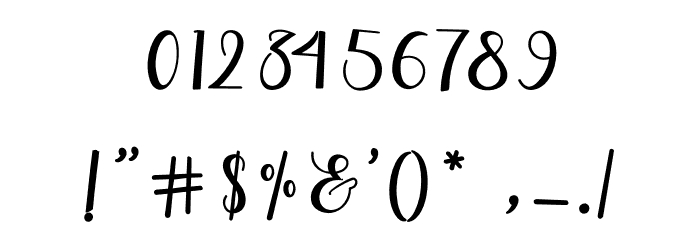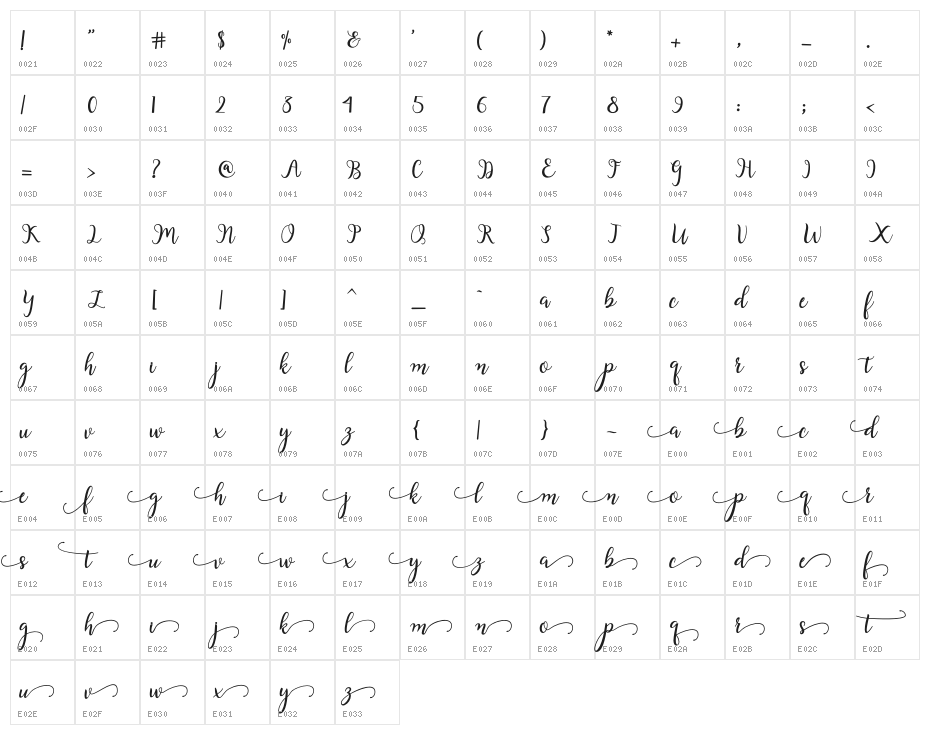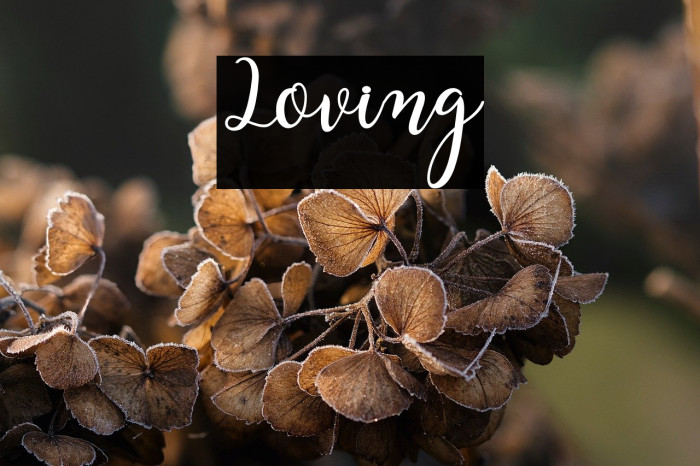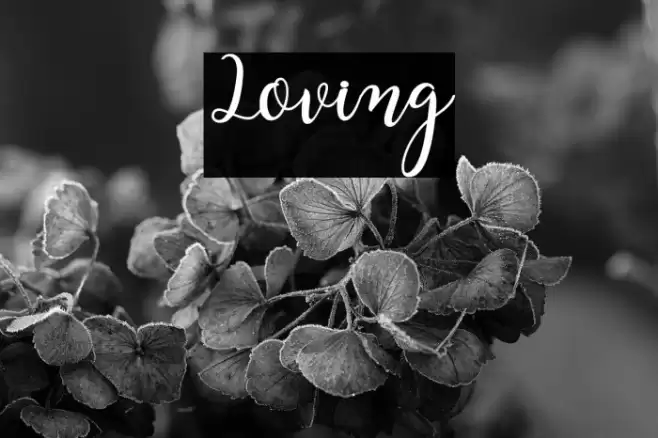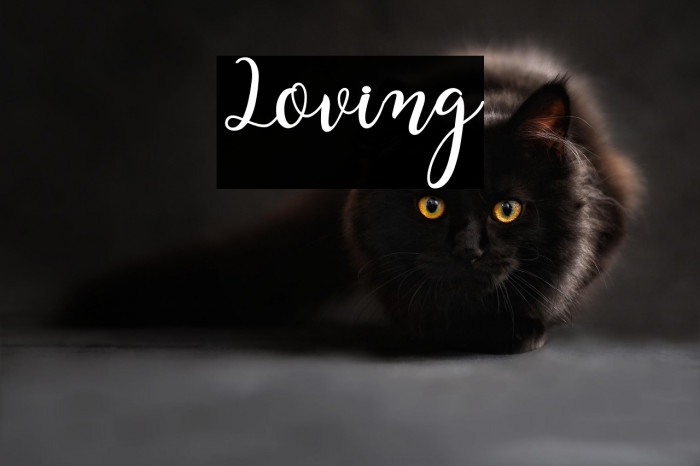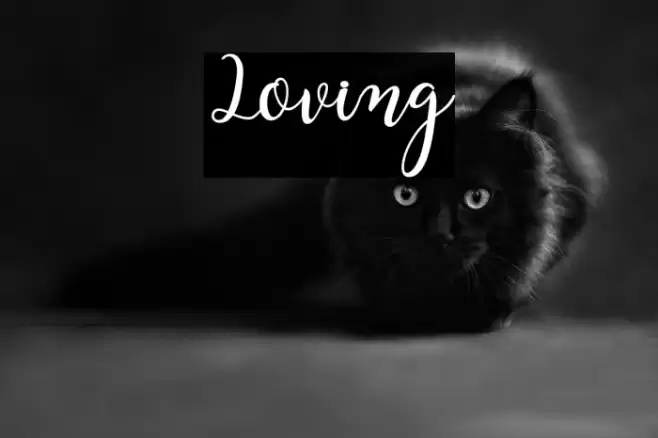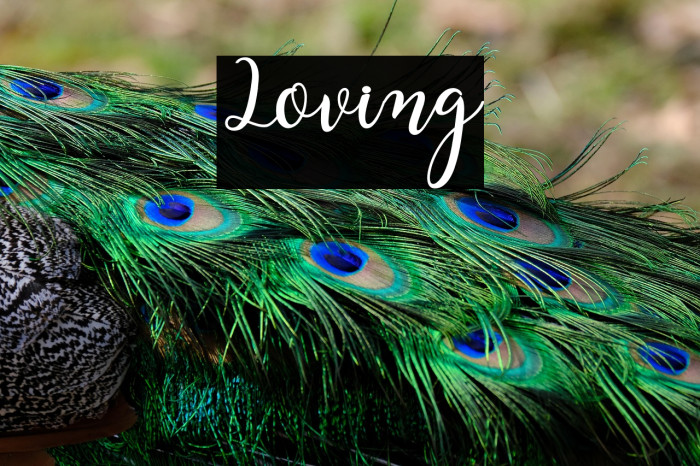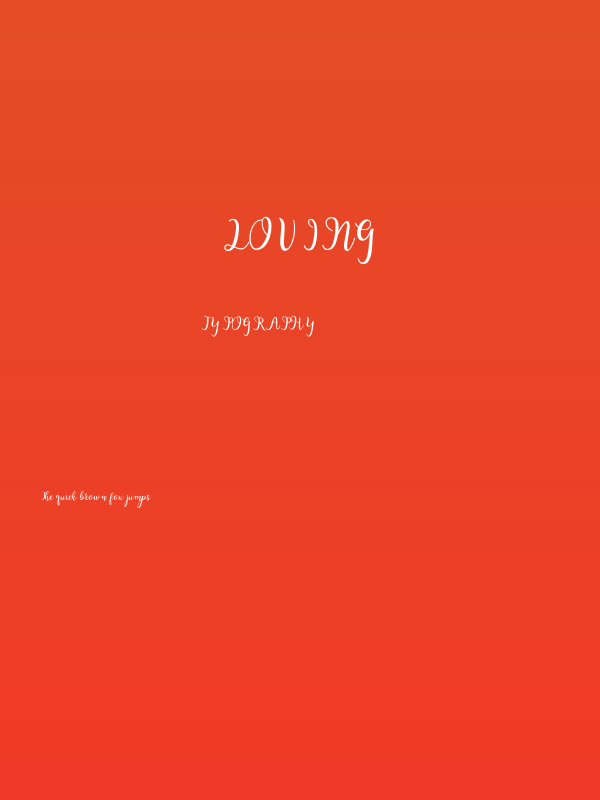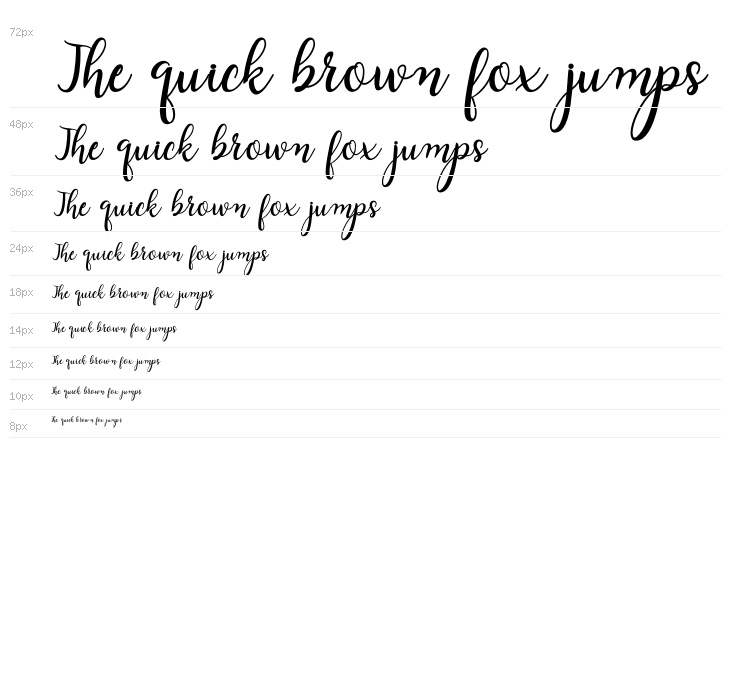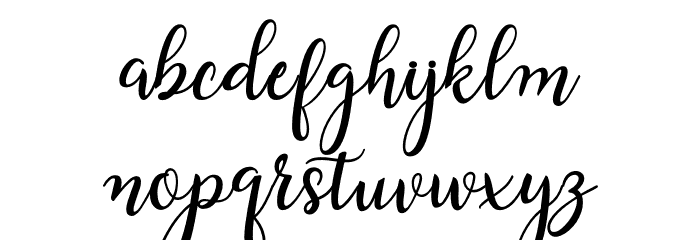
Loving Font
Loving Description
This elegant script font features flowing, cursive letters with a graceful and sophisticated appearance. The uppercase characters are slightly more formal, with smooth curves and a consistent stroke width, while the lowercase letters exhibit a charming, handwritten style with subtle variations in thickness. The numerals are clear and legible, maintaining the font's overall fluidity. Special characters are thoughtfully designed to complement the alphabet, adding a touch of flair without compromising readability. This font's artistic style makes it suitable for creative and decorative applications.
| Proposed Projects | Ideal for wedding invitations, greeting cards, branding, and elegant logo designs. |